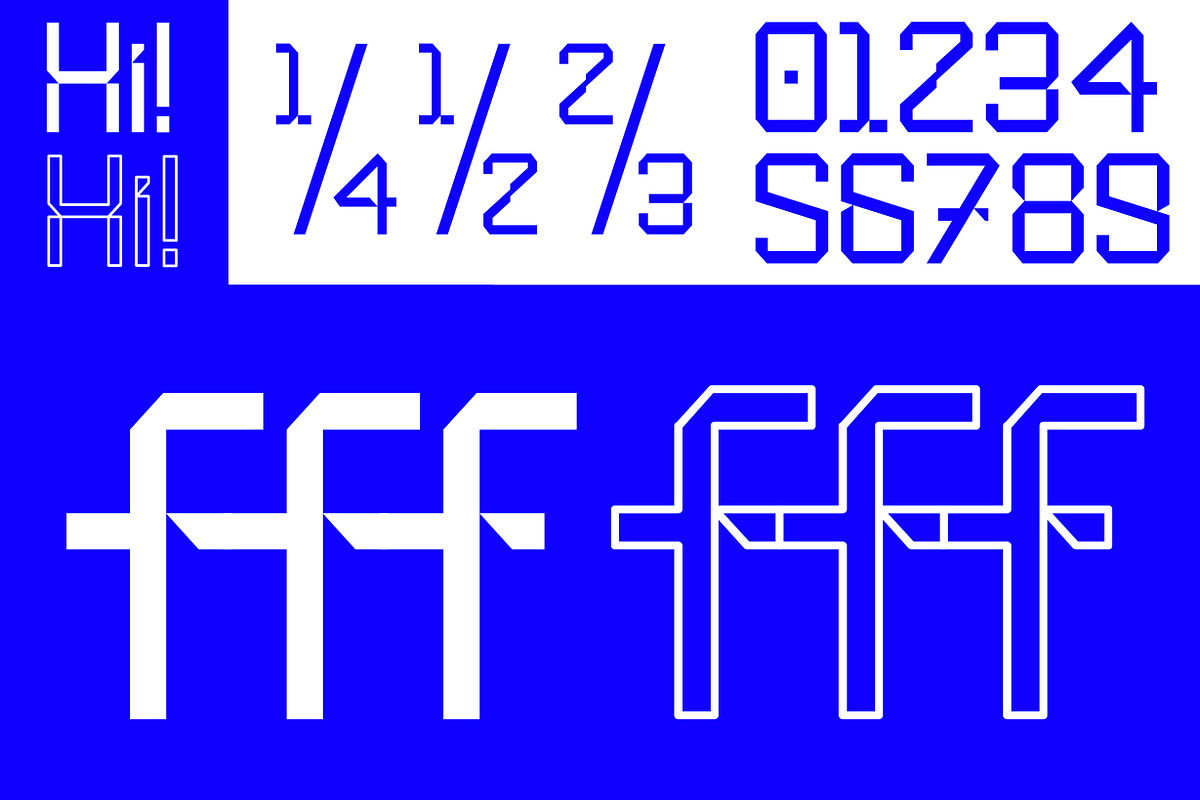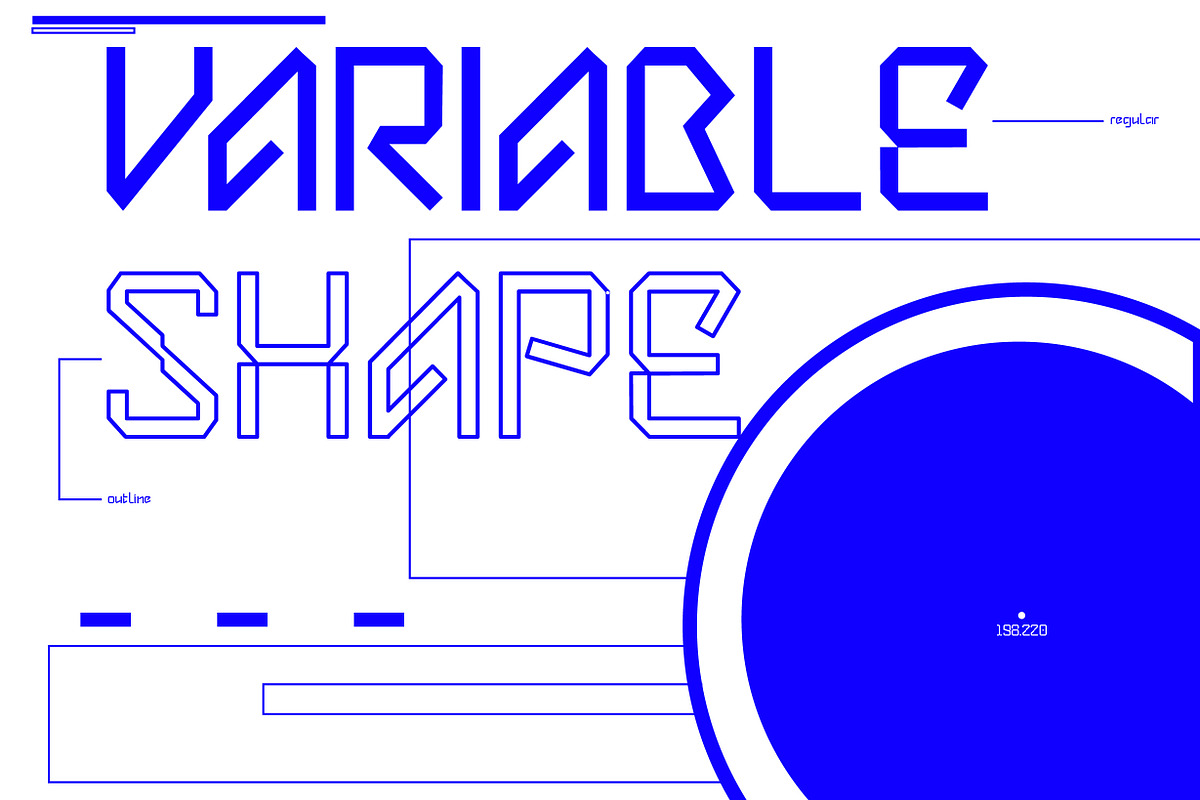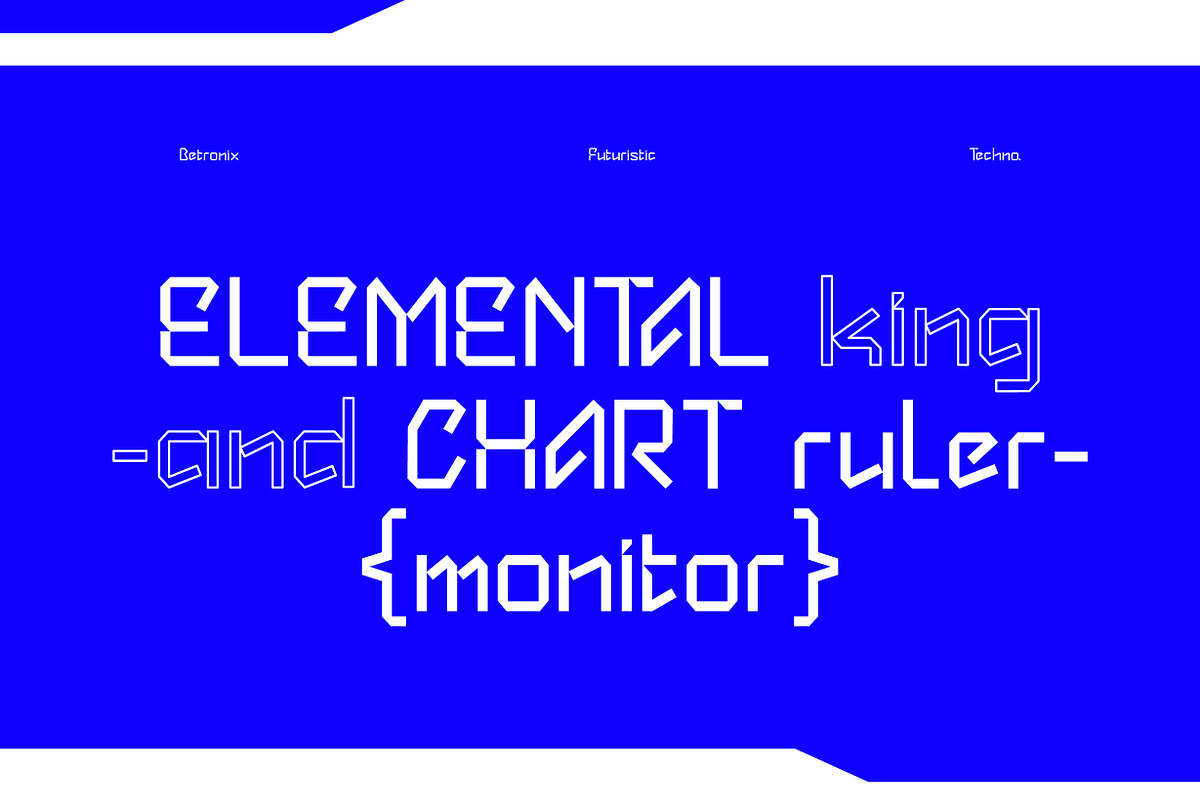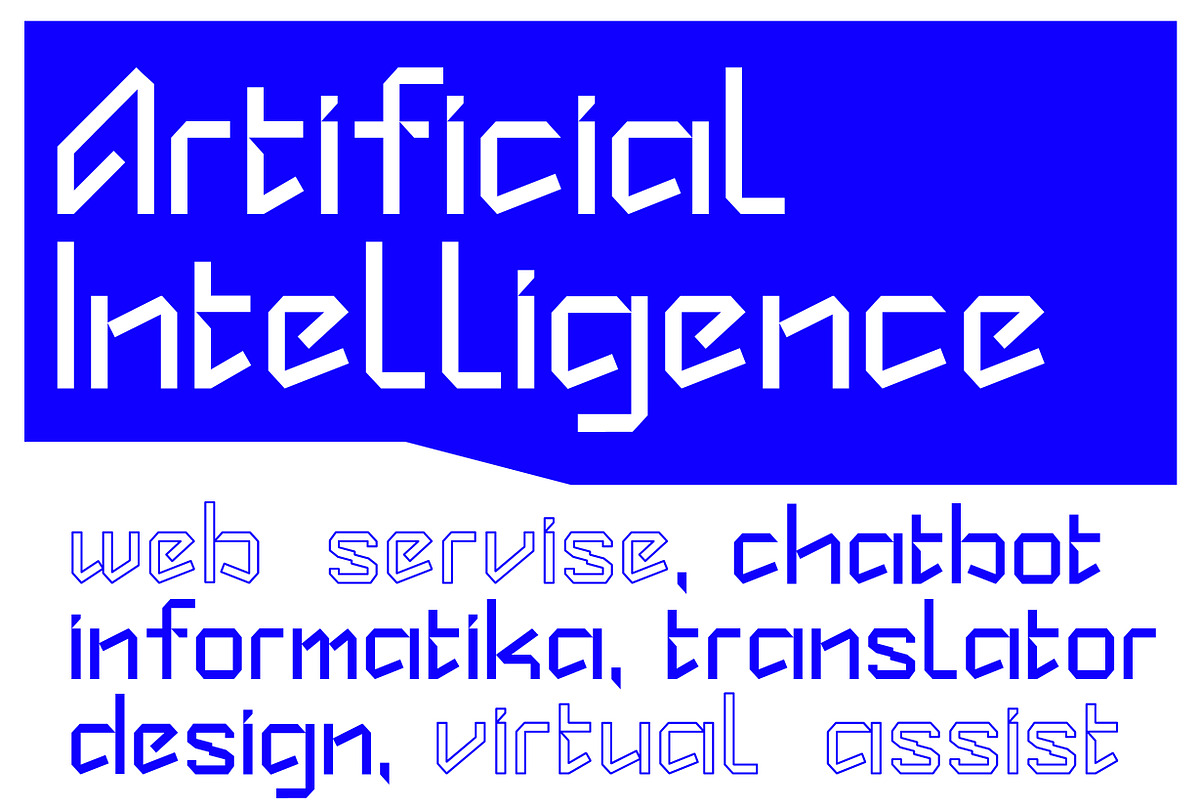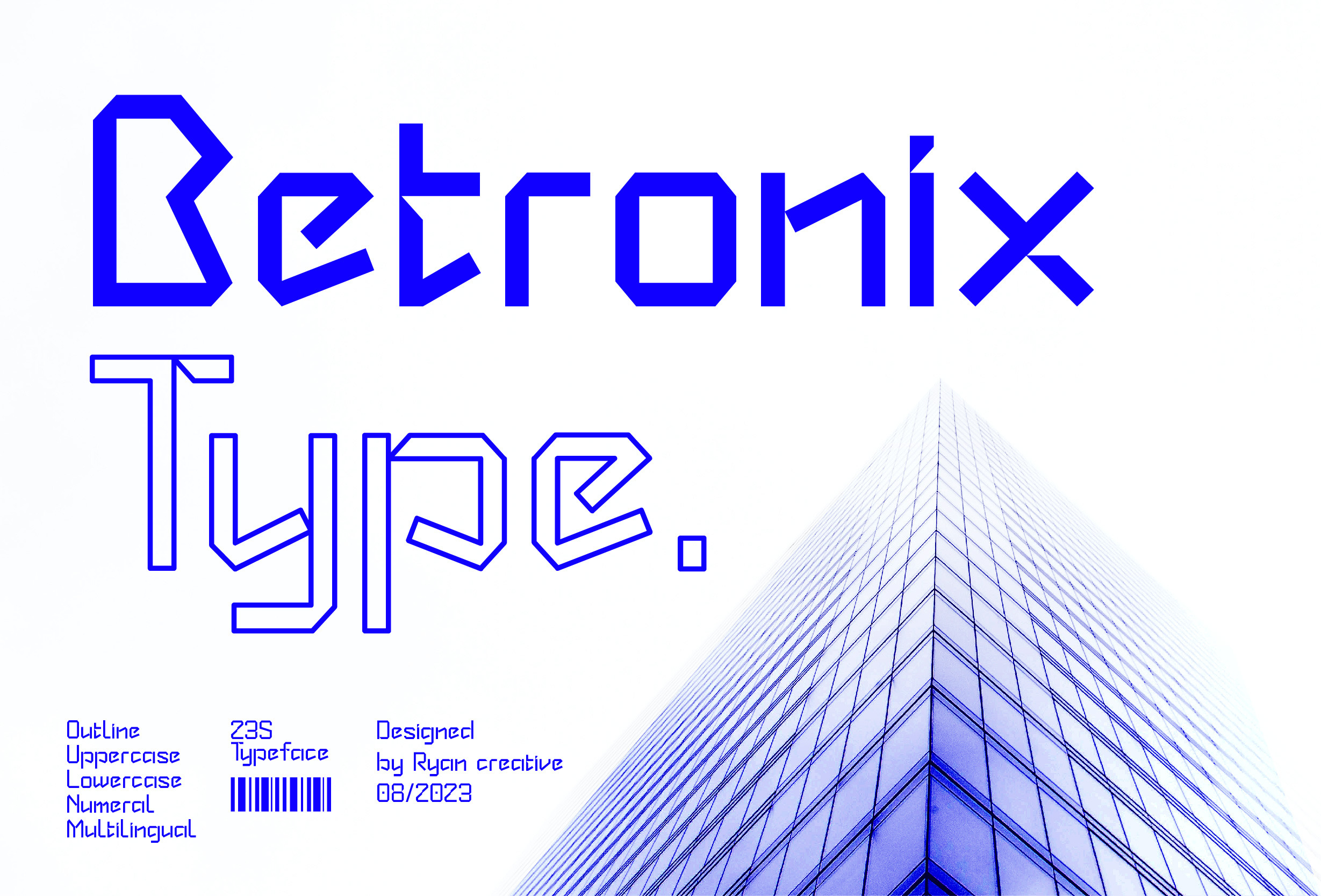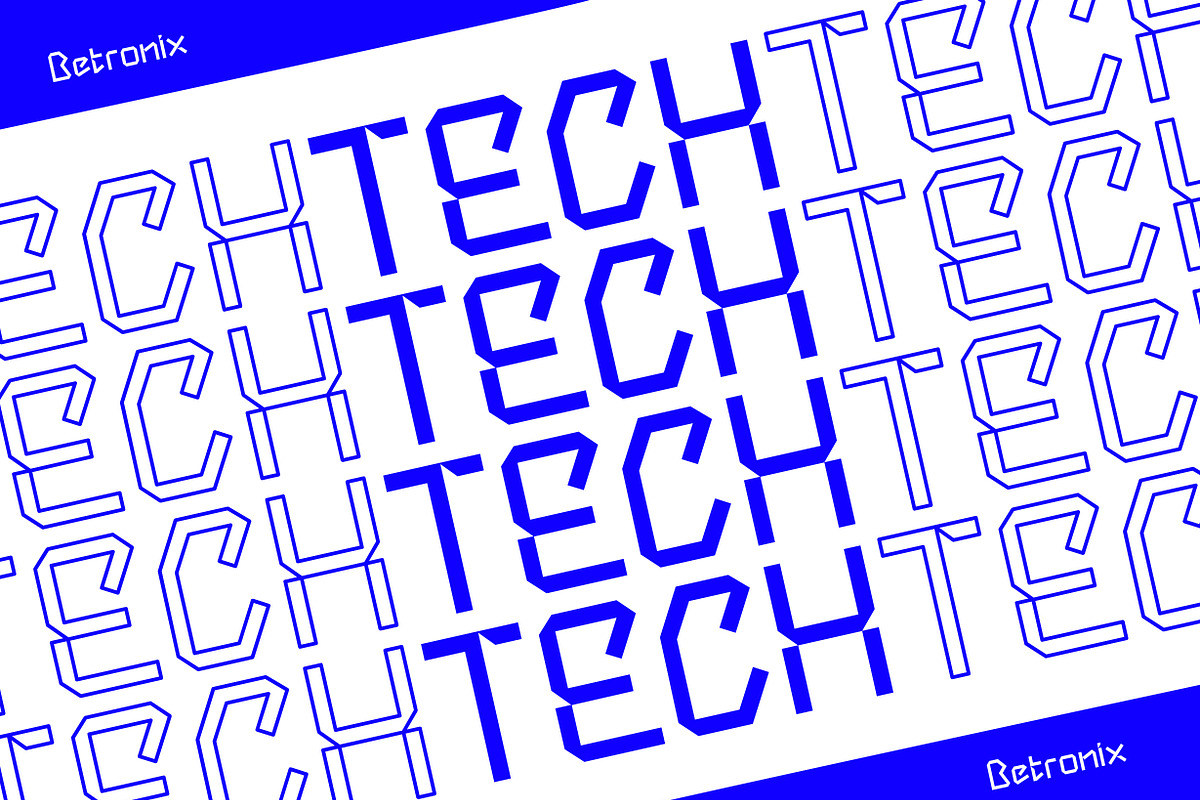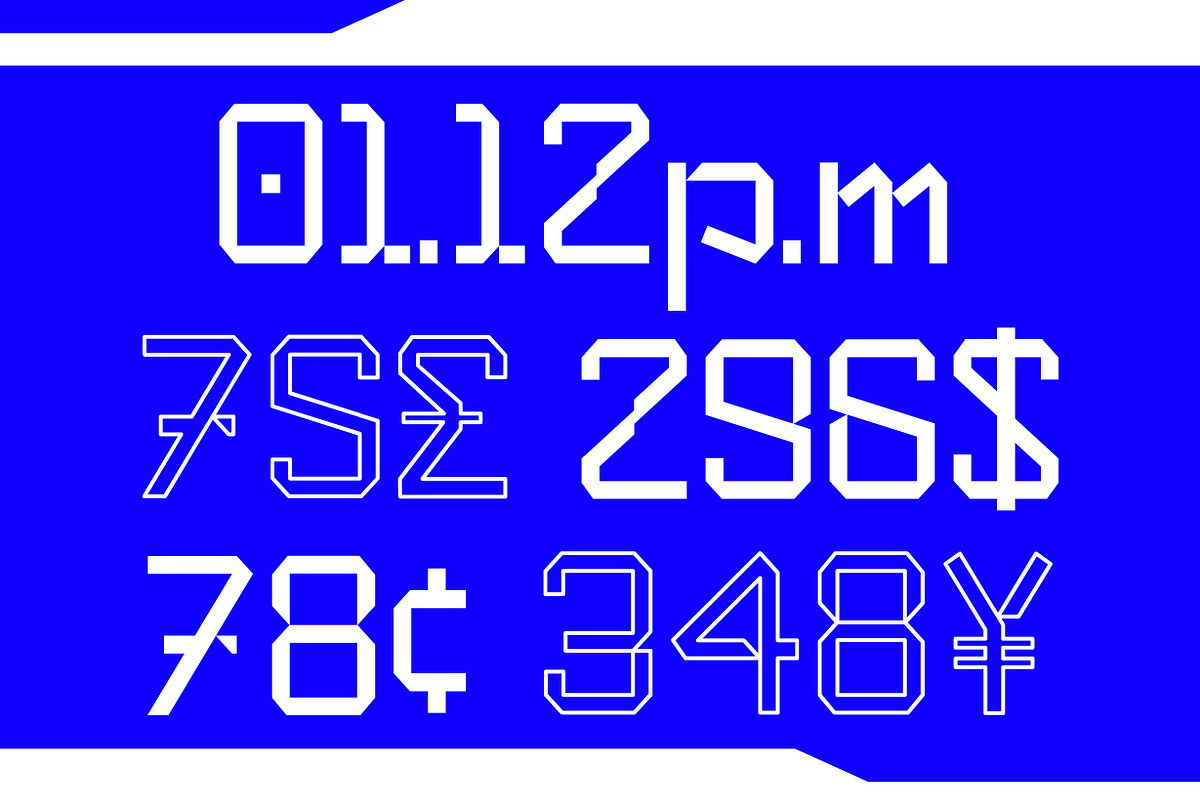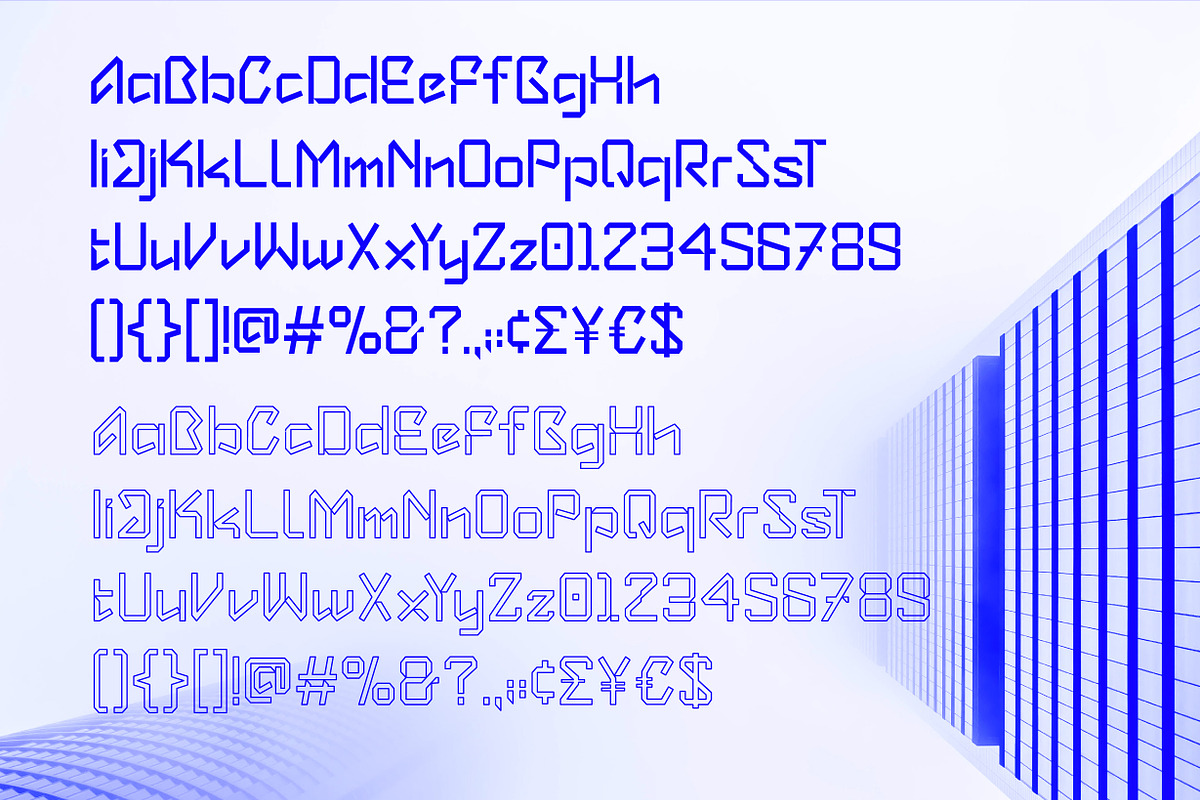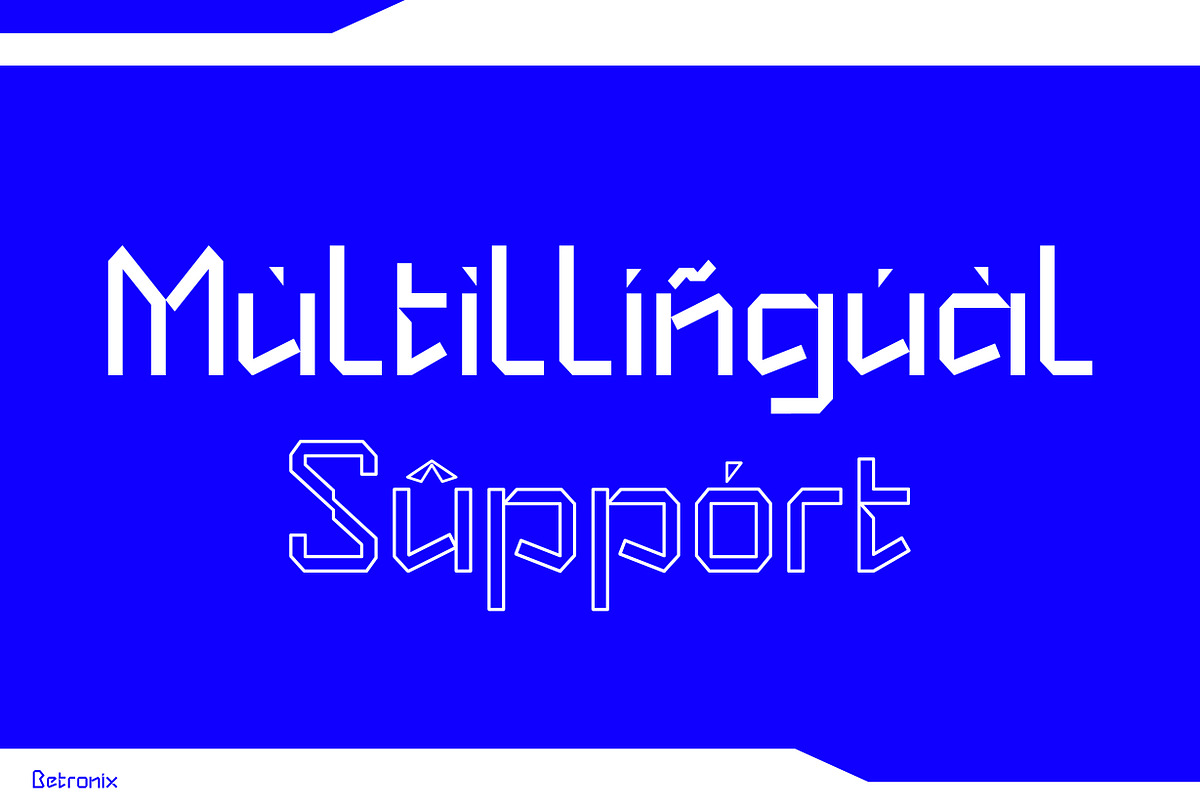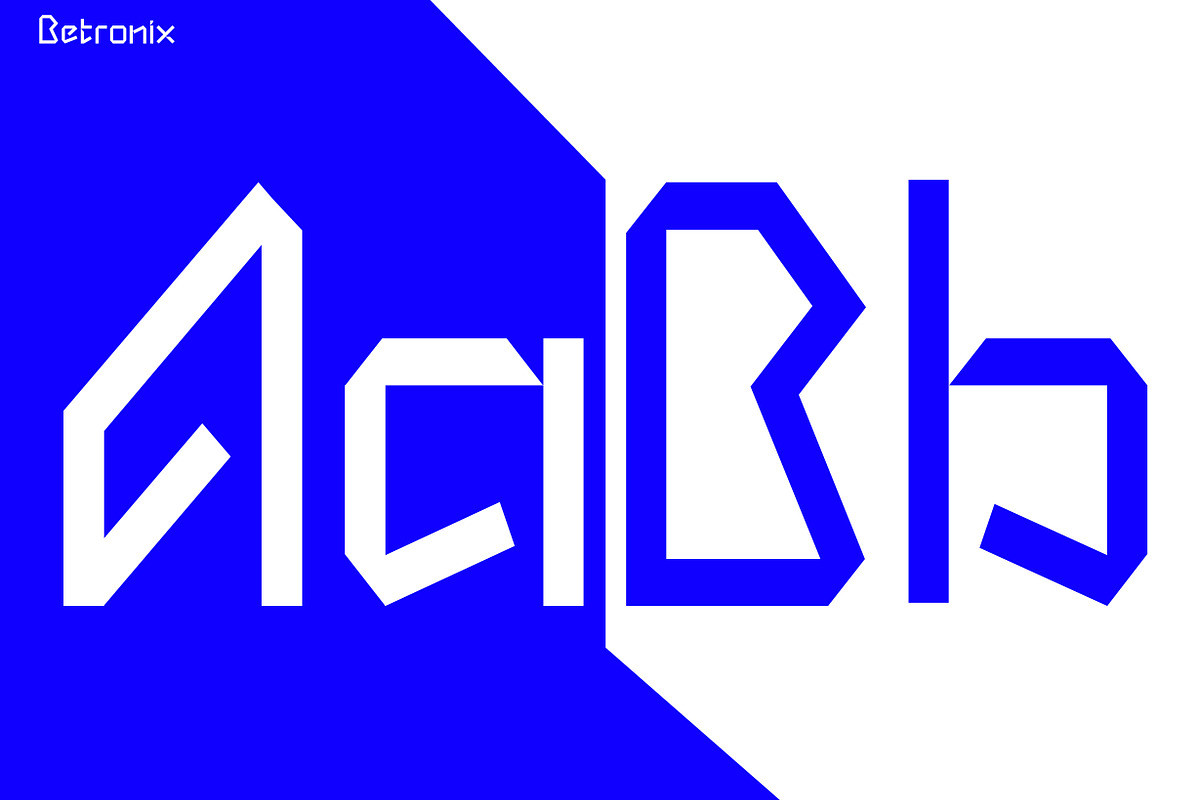
Betronix - Futuristic Font
Betronix is a tech typeface designed by Ryan creative that embodies a strong and modern vision approach, formal rigor, and shows a variety of designed characters including glyphs as well as depicting graphics in a modern, powerfully constructive anatomical way.
FEATURES;
Uppercase, Lowercase
Supports Foreign Languages, Numbers and Punctuation.
Regular & Outline